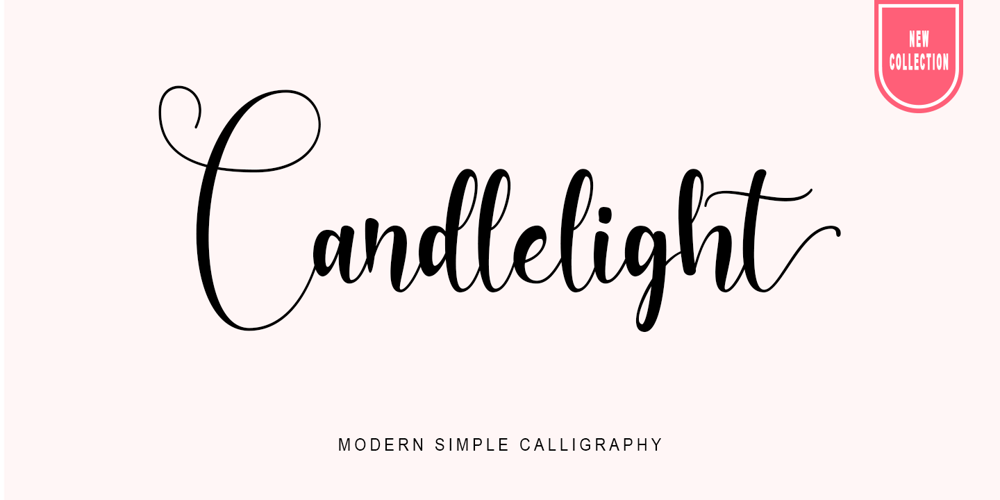
Candlelight Dinner Font Family was designed by Stefani Tri Rosa Setiati Christiana and published by Stefani Letter. Candlelight Dinner contains 1 styles and family package options. Candlelight Dinner is a modern simple calligraphy font designed with an incredibly modern, beautiful feel, fresh, rich, and elegant. It’s great for Easter-themed greeting cards, branding materials, business cards, quotes, posters, and more! Candlelight Dinner will look outstanding in any context, whether it’s being used on busy backgrounds or as a standalone headline! This font is PUA encoded which means you can access all of the glyphs and swashes with ease! It features a varying baseline, smooth lines, gorgeous glyphs, and stunning alternates.